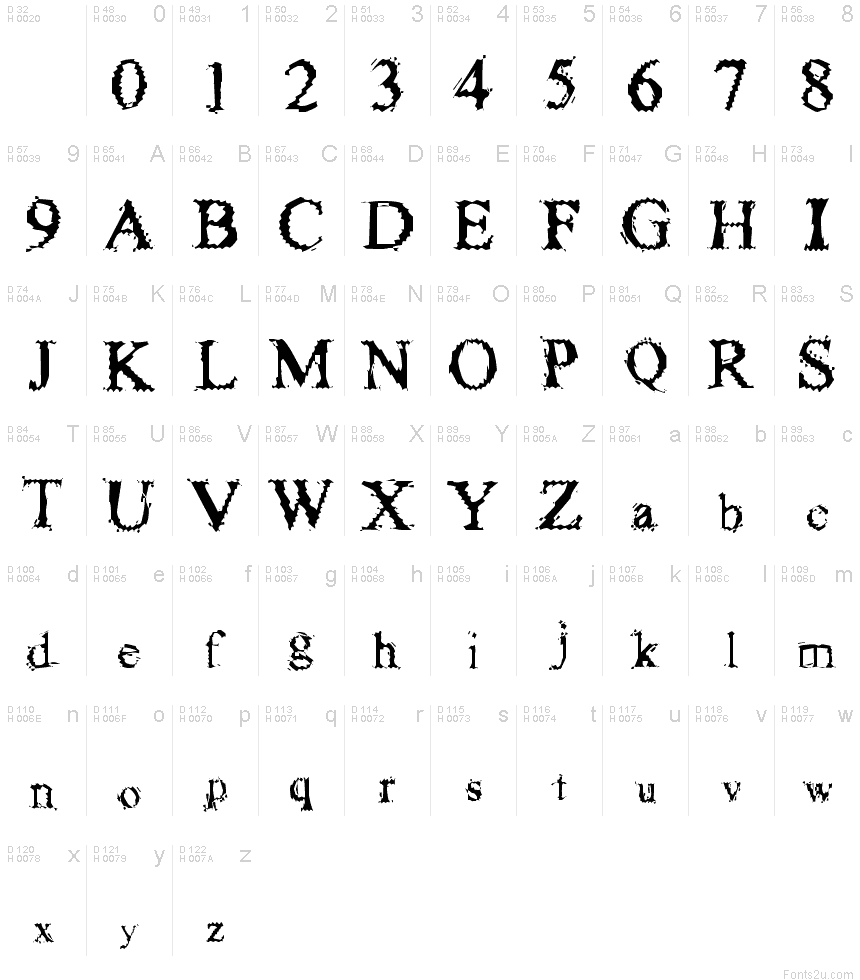
FuzzySock Thin
Fuzzy Sock Thin font by Omega Font Labs is a free distorted display typeface that looks like it’s been dragged through static and torn paper. Each letter wobbles with jagged edges and ink-blot textures, giving words a twitchy, uneasy energy that jumps off dark backgrounds. There’s a handmade, almost burned-film quality here that makes everything feel slightly cursed in the best way.
Using Fuzzy Sock Thin, you can push eerie branding, Halloween posters, horror book covers, zine titles, game splash screens, and haunted house signage into full-on creep mode. This free font works best large, where the frayed contours stay legible and the grit really shows; pair it with a plain, narrow sans serif for body text so the wild headline carries the mood while the details stay readable.